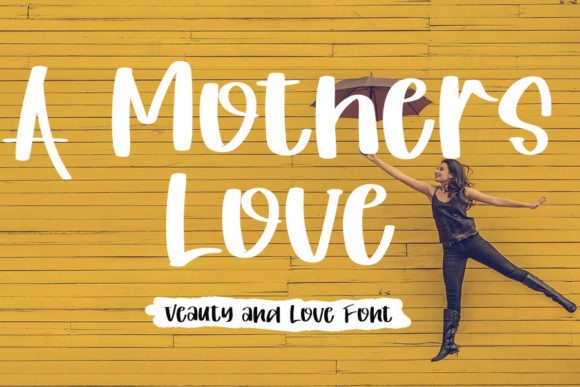
The Unconditional Charm of A Mothers Love Font
As a designer, I’ve had my fair share of moments where finding the perfect font felt like searching for a needle in a haystack. I recall working on a project for a mother’s day campaign, wanting a font that exuded warmth, love, and a touch of nostalgia. That’s when I stumbled upon A Mothers Love Font, and it instantly stole my heart. In this article, I’ll share my journey with this gorgeous font, its features, and how you can make the most of it in your designs.
A Personal Connection
Working on a mother’s day project made me think of my own mom and the countless sacrifices she’s made for me. It was a beautiful, emotional journey, and I wanted the font to reflect that. A Mothers Love Font was the perfect fit – it’s friendly, strong, and dynamic, with a nostalgic charm that immediately resonated with me.
Here’s what I love about A Mothers Love Font:
- ✨ Gorgeous handwritten style that’s both elegant and approachable
- ✅ Strong and confident, perfect for headlines and logotype projects
- 💕 Adds a touch of nostalgia to your designs, making them more relatable
- 🎨 Highly versatile, suitable for various design projects, from branding to invitations
While A Mothers Love Font is amazing, there are a few quirks to keep in mind:
- 🤔 Some letters may require manual kerning for optimal spacing
- ⚠️ Limited availability of stylistic alternates, but the existing ones are well-curated
The Designer Inspiration Behind A Mothers Love Font
Although the true story behind A Mothers Love Font remains a mystery, it’s easy to imagine that its designer was inspired by the unconditional love of their own mother. Perhaps they wanted to create a font that would help others express their gratitude and appreciation for the special women in their lives. Whatever the inspiration, A Mothers Love Font is a beautiful tribute to the power of motherly love.
| Font Name | A Mothers Love Font |
| What makes A Mothers Love Font unique? | A Mothers Love Font stands out with its gorgeous handwritten style, strong and confident personality, and nostalgic charm. |